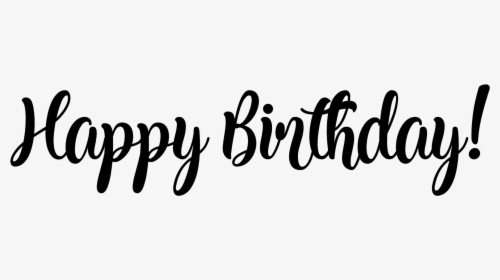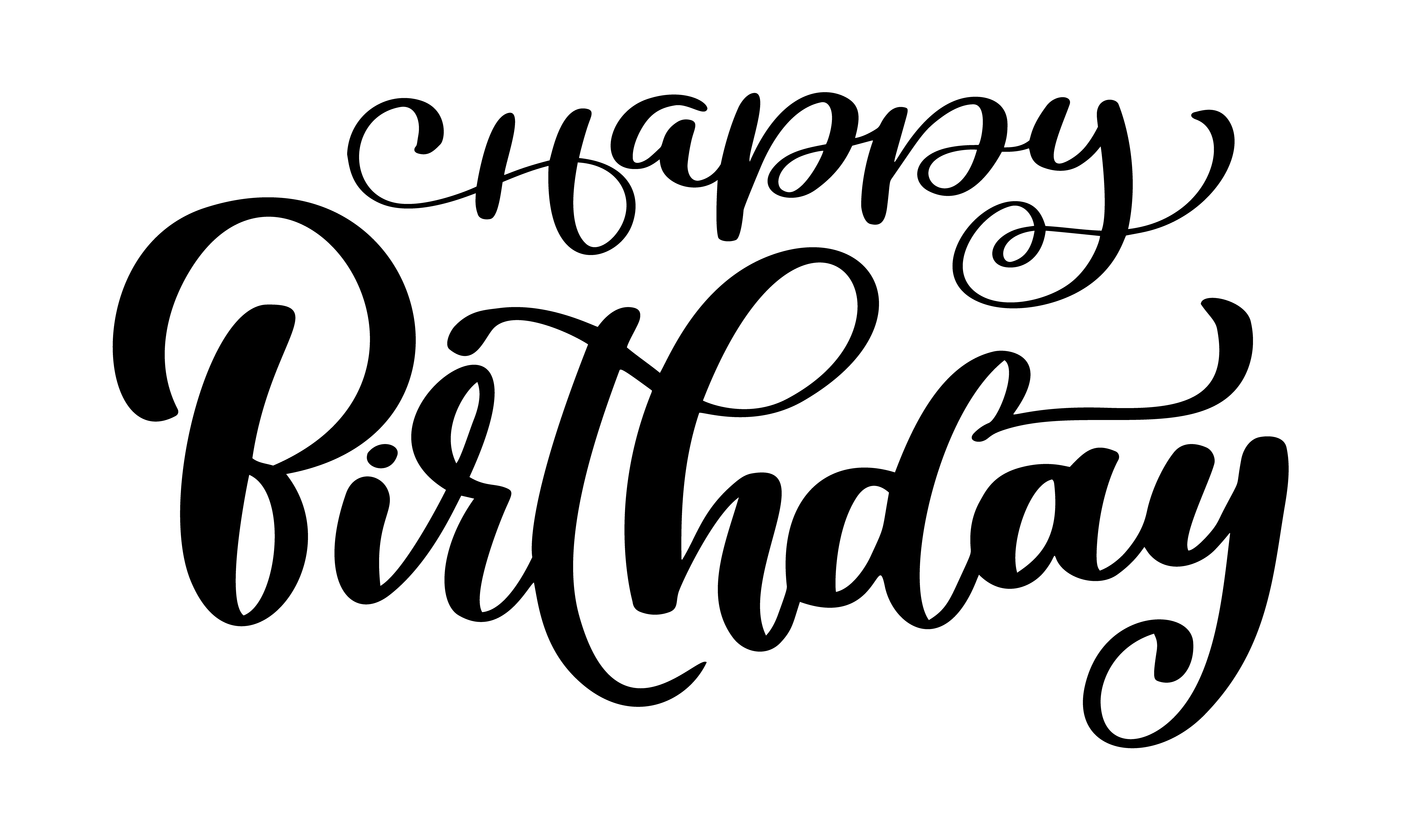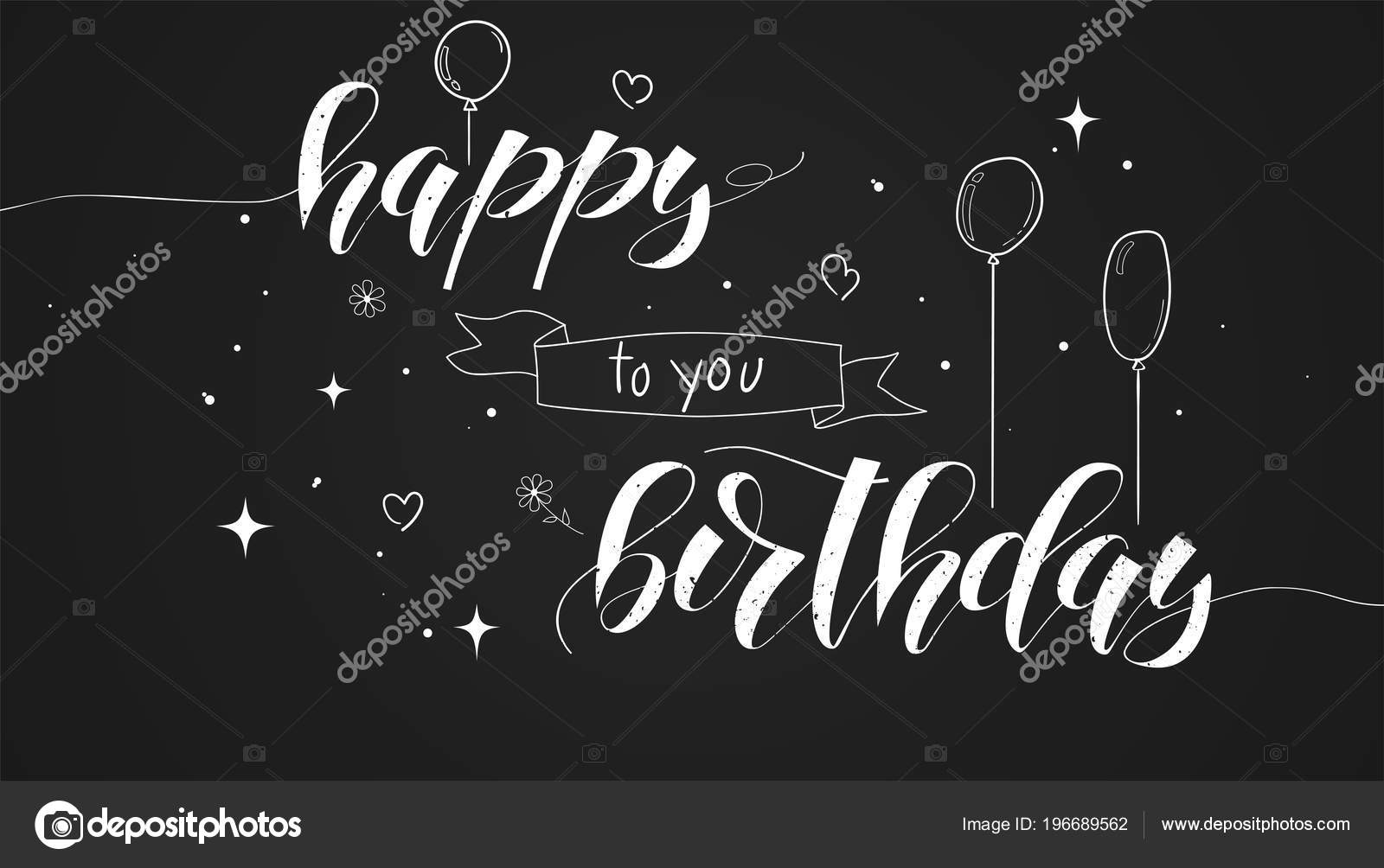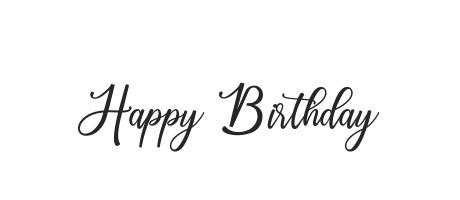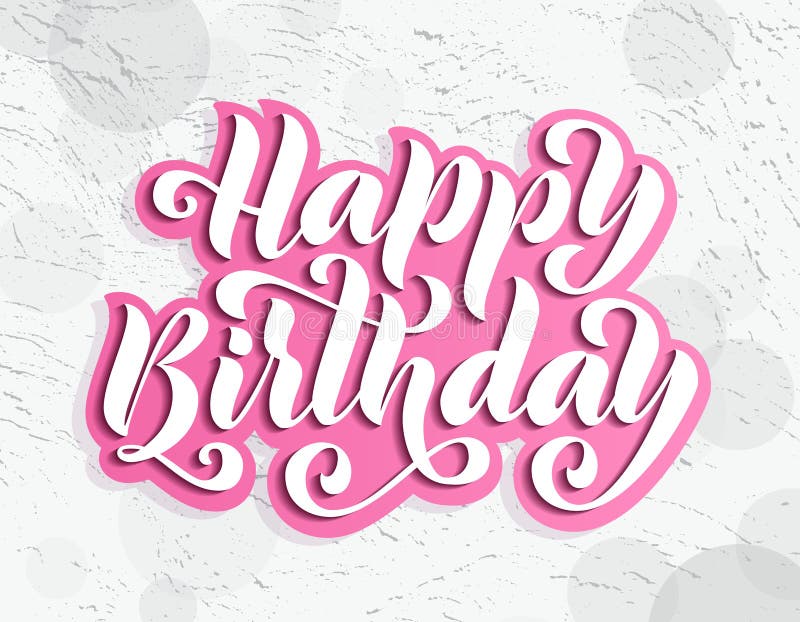
Happy birthday greeting card template with festive vector.
Calligraphy happy birthday font styles. Available in luxury 250 gsm Ivory card stock or 290 gsm Blush Pink card stock Available in black or gold ink Comes with a premium. Stylish way to write happy birthday for beginners using cursive writing calligraphy stylish fonts nd fancy letters. If you want the whole happy birthday in hand lettering then simply change the font.
Happy Birthday to you. Happy Birthday Writing. Existing knowledge of calligraphy curs.
As a designer this alternative works well with titles emblems digital art brands and signs. You can use this typeface for branding calligraphy and quotes. Lettering calligraphy happy birthday font happy birthday words hand drawn creative calligraphy and brush bday lettering 2yamaha com happy birthday lettering text vector illustration birthday lettering happy birthday clipart hand drawn lettering happy birthday elegant modern handwritten real time brush lettering happy birthday with flourishing.
More you can try first if you want to buy this font. Some of the examples have happy birthday written in calligraphy only and others combine hand lettering with simple handwriting. Choose the combination that you like best.
60 free calligraphy fonts and lettering fonts download finding the right calligraphy font. Birthday Font is equipped with 363 glyphs. The perfect way to say happy birthday.
Gift by Nghts Place. Oct 2 2015 - Hello Today I want to show you how to write happy birthday in calligraphy. Choose any cool font from the list of options.
Happy birthday text hand drawn lettering grunge vector. Luxury handwritten and made-to-order Happy Birthday card handwritten by me in my signature stretched modern calligraphy style. Happy Birthday Baby 2 by Mistis Fonts.
Your present is this collection of free birthday party fonts. The latest and smooth style of this font is ideal for the colossal-sizes textual content. About this vedio- is vedio mein hamne bataya hai ki happy birthday cursive font se kaise likheRelated tagsHappy birthday writing stylesHappy birthday cursiv.
Happy birthday card with color hand-drawn doodle vector. Designed by rita konik. If you dont want the hassle of downloading and installing fonts but just want to use calligraphy fonts fonts online you should check our.
See more ideas about lettering writing styles happy birthday calligraphy. Easy version for beginners. For example if you want happy birthday in cursive then choose a cursive font.
Happy Birthday Font is the modern and elegant font typeface which has beautiful text styles. Fonts And Calligraphy Lettering Style. We have 40 free Birthday Fonts to offer for direct downloading 1001 Fonts is your favorite site for free fonts since 2001.